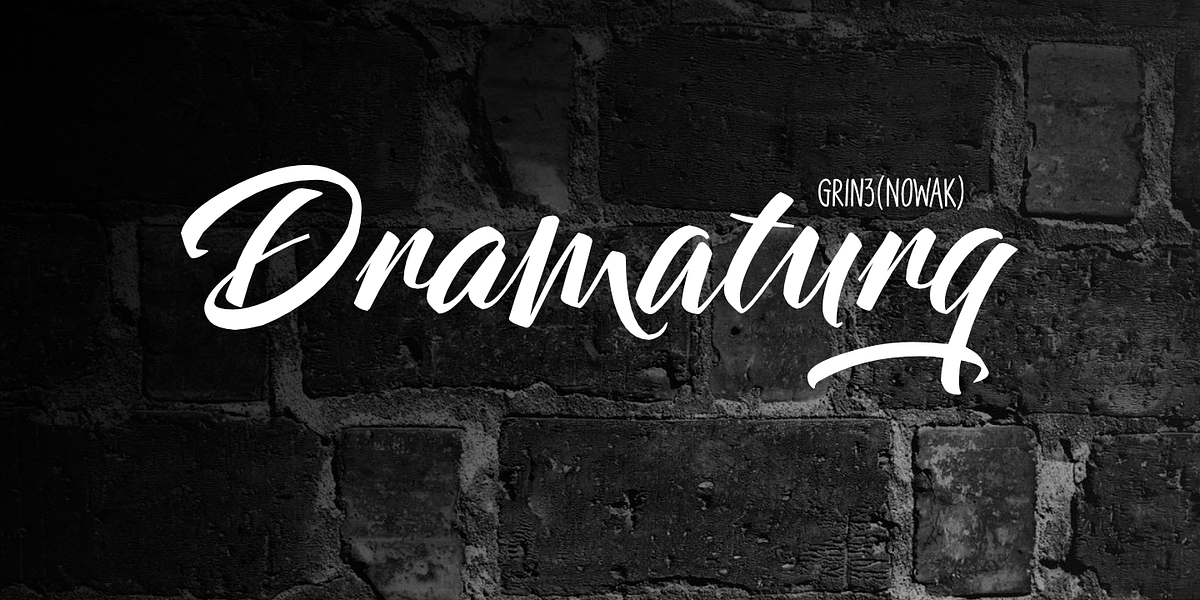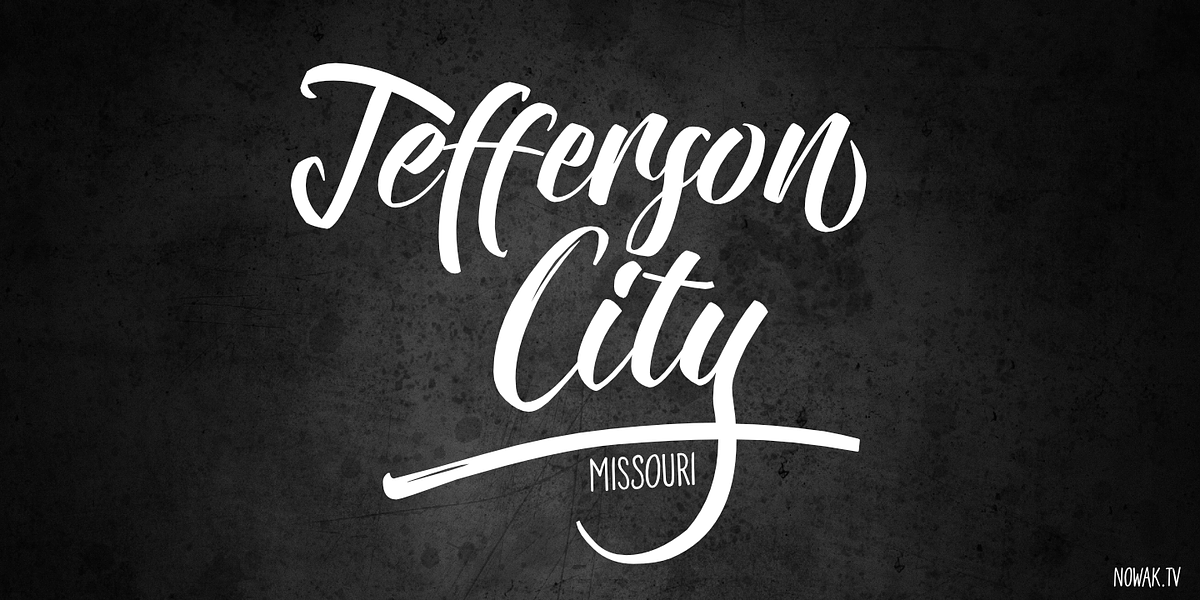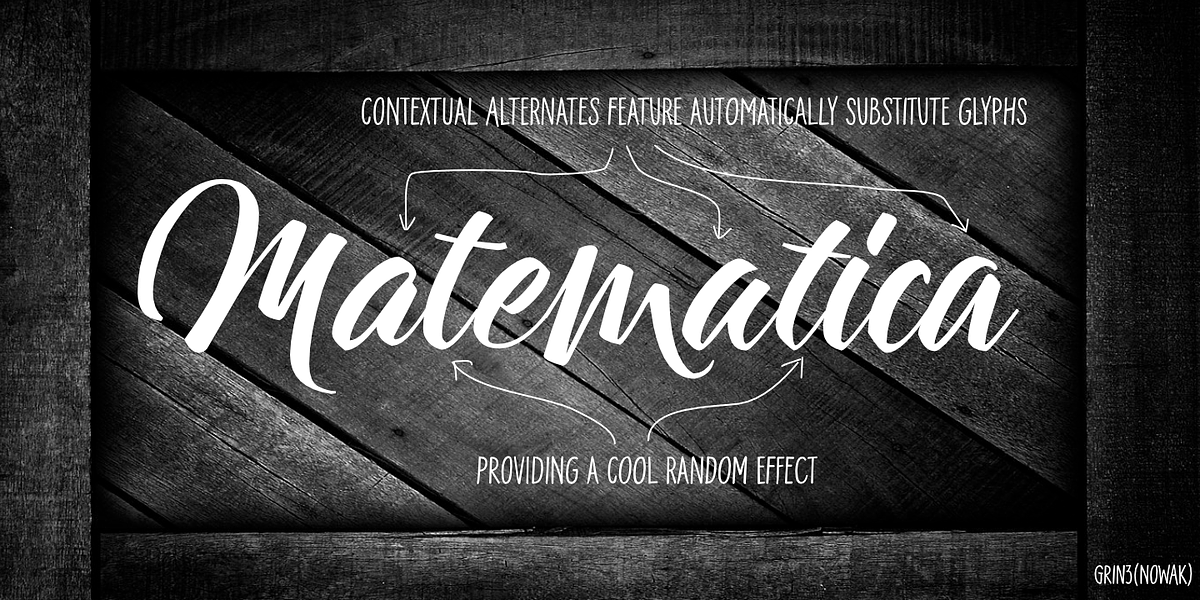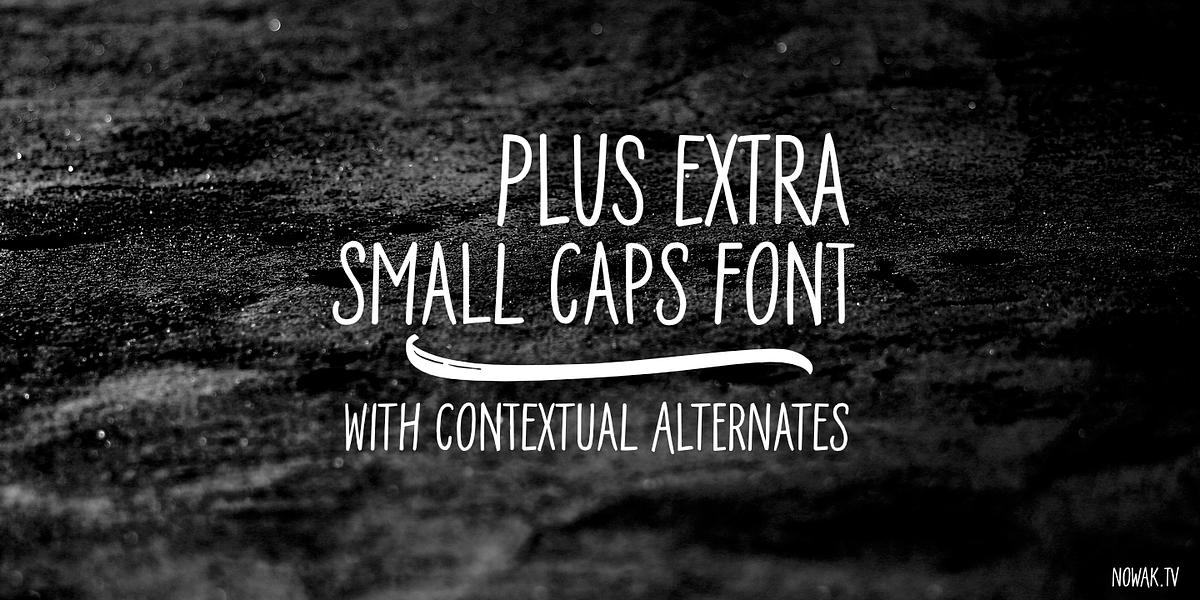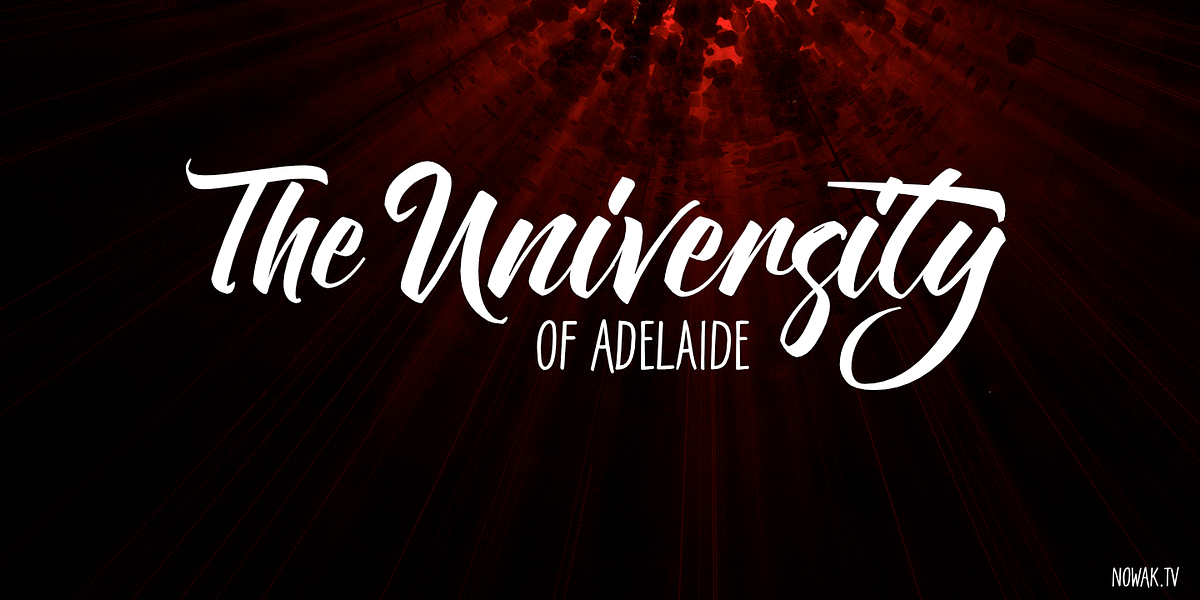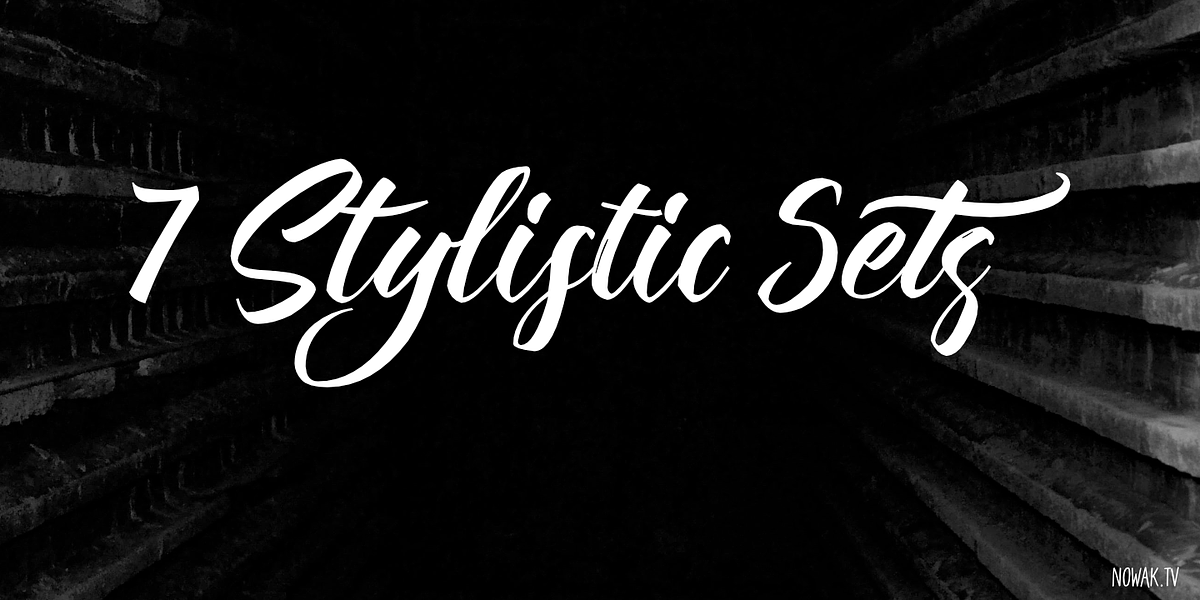
Dramaturg
Dramaturg is a casual brush script font designed to emulate natural handwriting. It features ligatures and contextual alternates that help create a smooth and flowing appearance. The regular style offers extensive glyph coverage with stylistic sets and variations for both lowercase and uppercase letters.